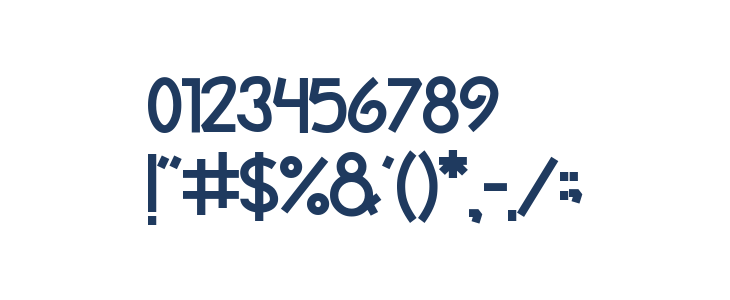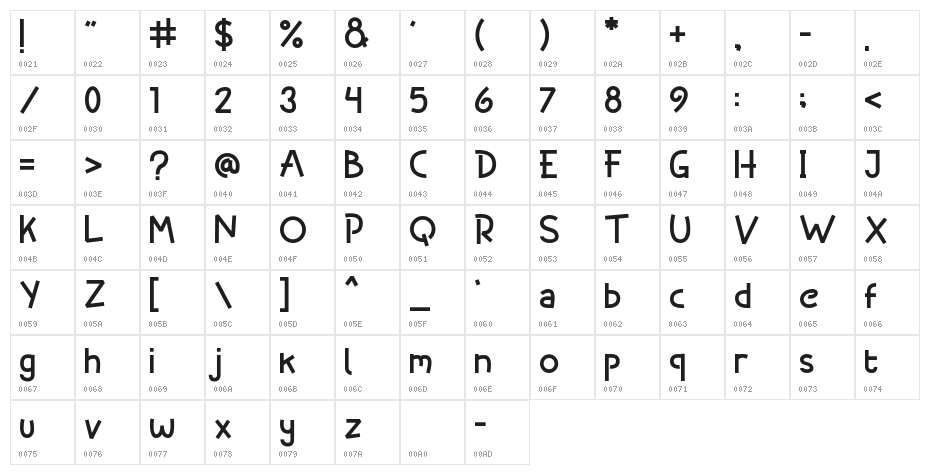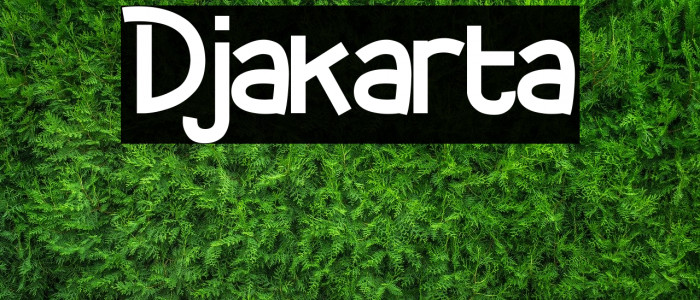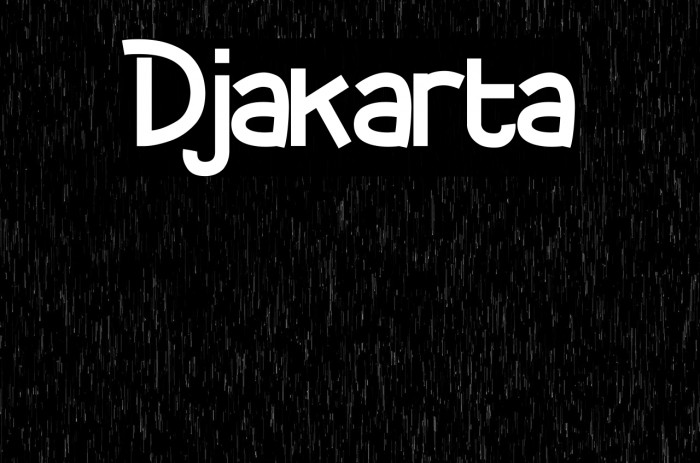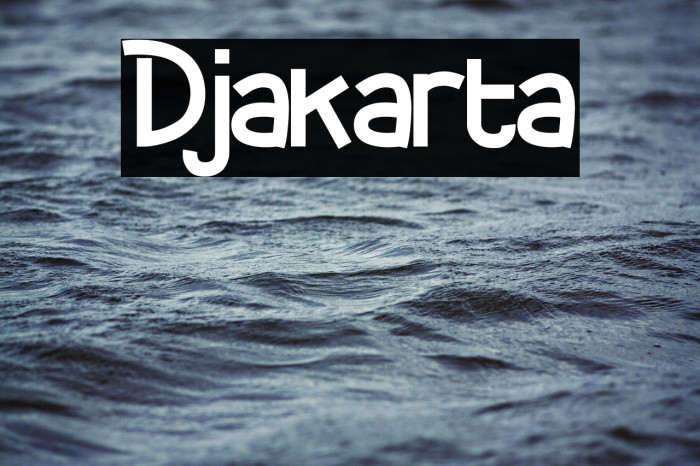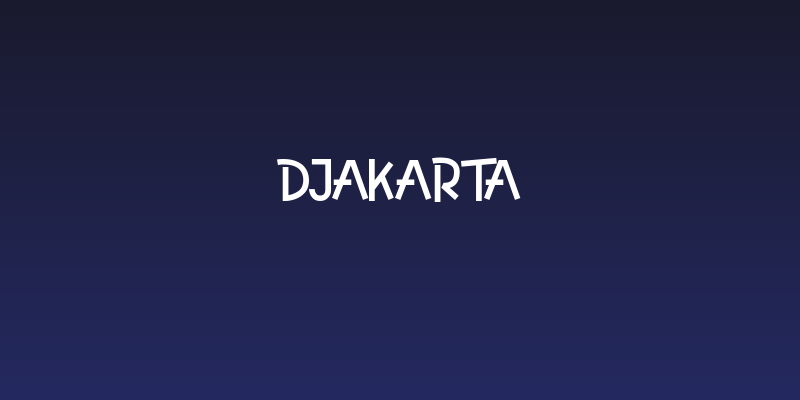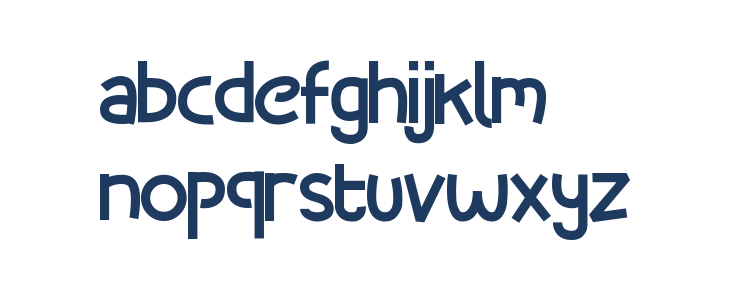
Djakarta Font
Djakarta Description
This font features a bold and dynamic style with a playful yet structured appearance. The uppercase letters exhibit a unique geometric flair, with angular lines and a slight slant that adds a sense of movement. The lowercase letters maintain a consistent style, offering a harmonious blend of curves and straight edges. The numerals are bold and easily readable, complementing the overall aesthetic. Special characters are designed with the same attention to detail, ensuring a cohesive look across all glyphs. This font's distinct personality makes it suitable for creative and eye-catching designs.